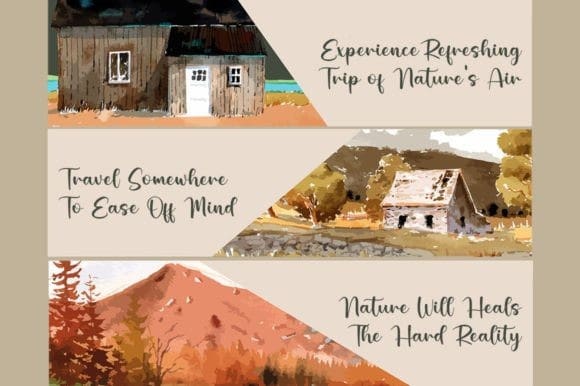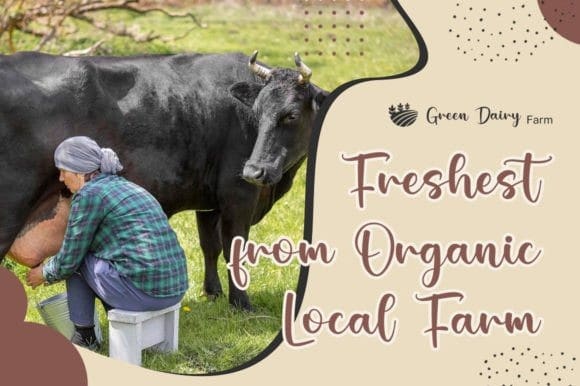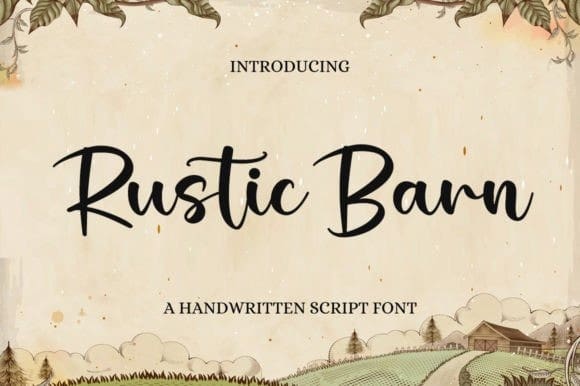
Rustic Barn Font
Rustic Barn Font is a lovely and timeless handwritten font. It is the best choice for creating eye-catching logos, branding, and quotes.